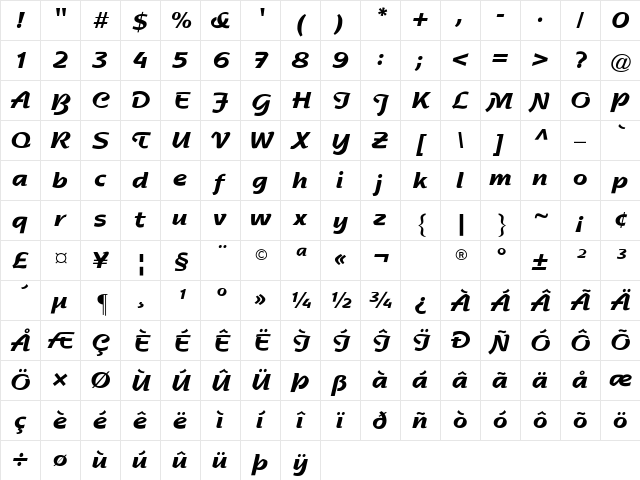
ATNadianne-Bold Regular
Design Context for ATNadianne-Bold
ATNadianne-Bold is a composed and adaptable typeface that performs quietly and consistently across a wide range of design contexts. Its bold stroke weight gives it real presence on the page.